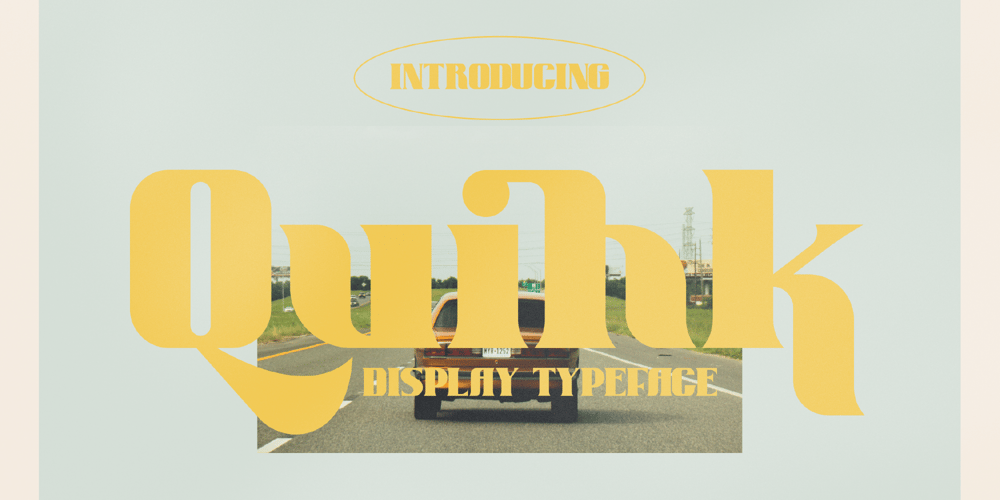
Quihk Font Family was designed by Heru Utama Putra and published by Letterena Studios. Quihk contains 2 styles and family package options. Quihk is a modern and classy serif font with its own unique style and modern look.This typeface is perfect for an elegant & luxury logo, book or movie title design, fashion brand, magazine, clothes, lettering, quotes, and so much more.